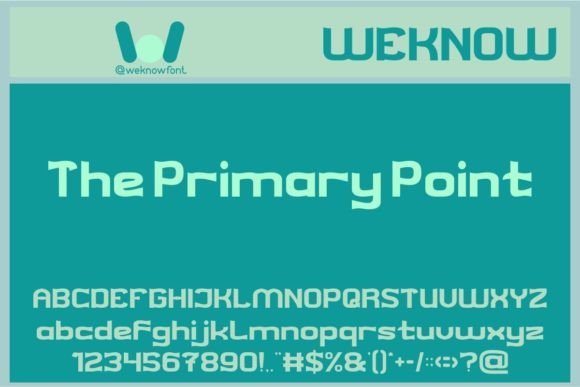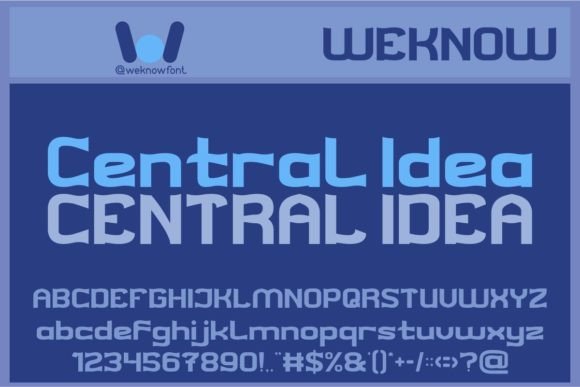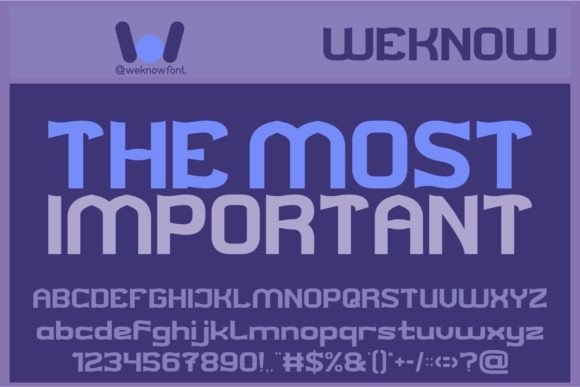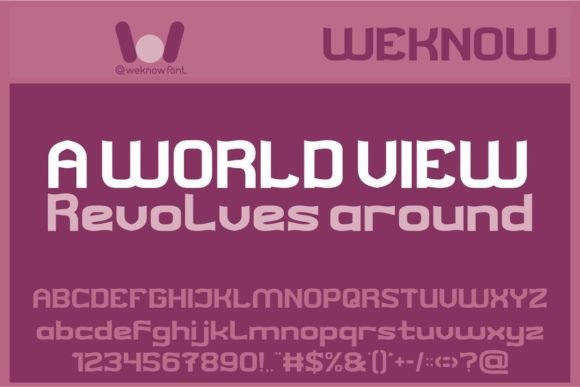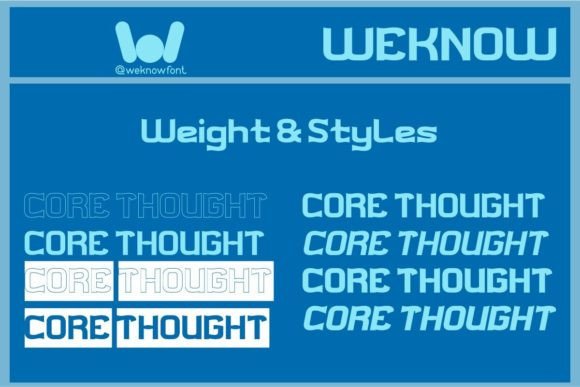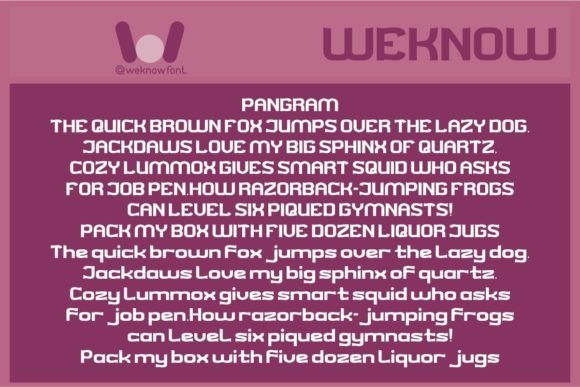
Unlocking Creative Potential with Core Thought Font
I’ll never forget the design struggle I faced while working on a branding project for a trendy new cafe. My client wanted a font that exuded elegance, sophistication, and a dash of playfulness. I scoured the internet, tried countless fonts, but nothing seemed to fit the bill. That was until I stumbled upon Core Thought Font. It was like a breath of fresh air – the perfect blend of charm and neatness that elevated my design to the next level. In this article, I’ll share my love for Core Thought, its features, and how you can make the most of this versatile font in your creative projects.
An Honest Review of Core Thought Font
- ✨ Elegant and sophisticated design that’s perfect for a wide range of creative projects
- ✅ Highly versatile and adaptable to different styles and themes
- 🔥 Fabulous and varied style that adds a unique flair to media, from music and movies to games
- 💡 Perfect for both digital and print applications, including logos, headlines, and body text
While Core Thought Font is an excellent choice, there are a few minor quirks to be aware of:
- 🤔 Some users may find the font’s elegance and sophistication limiting for very casual or playful projects
- ⚠️ The font’s legibility may be affected if used at very small sizes or in low-contrast color schemes
- Experiment with OpenType features, glyphs, and stylistic alternates to add depth and variety to your design
The Story Behind Core Thought Font
According to the font’s creators, Core Thought was inspired by the intersection of modern design and classic typography. The goal was to create a font that would be both elegant and approachable, suitable for a wide range of creative projects. Through a combination of traditional techniques and digital tools, the designers crafted a font that is both timeless and contemporary.
| Font Name | Core Thought Font |
| Author | weknow |
Q: What type of projects is Core Thought Font best suited for?
A: Core Thought Font is a versatile font that can be used in a wide range of projects, from branding and advertising to music and movies, games, and more.
Q: Is Core Thought Font suitable for body text?
A: While Core Thought Font is elegant and sophisticated, it may not be the best choice for long-form body text. However, it can be used for shorter paragraphs or captions with great effect.